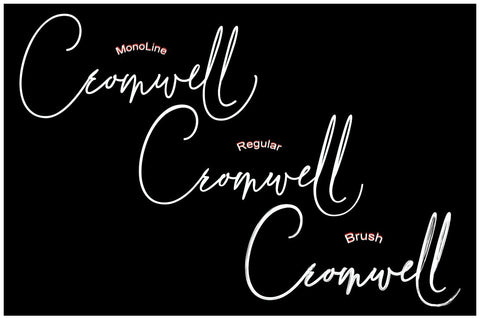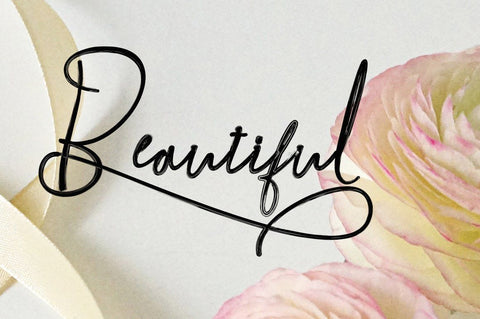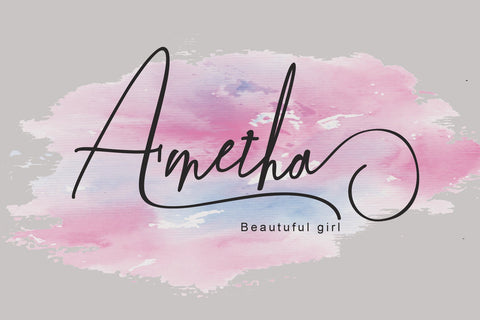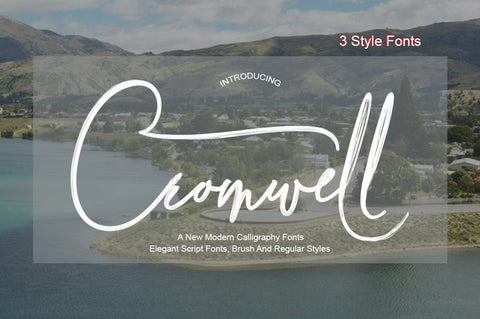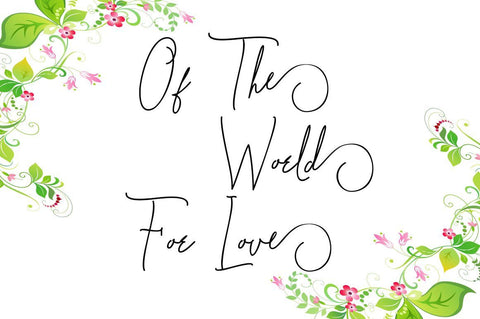
Cromwell 3 Fonts
Cromwell 3 Fonts Style
Cromwell is an elegant calligraphy and natural script style.
Cromwell Modern Calligraphy is perfect for wedding designs, shared moments, branding projects, logos, social media posts, advertisements, product packaging, product design, labels, photography, watermarks, invitations, stationery, and any project that requires a handwritten feel.
The Features of this fonts is:
* Standart ligatures
* Stylistic Alternates
* Stylistic sets
* Contextual Alternates
a font that made the hand by having the character up and down like a dancer. Cromwell has a very unique style of calligraphy, it is very suitable for use in the work of modern design.